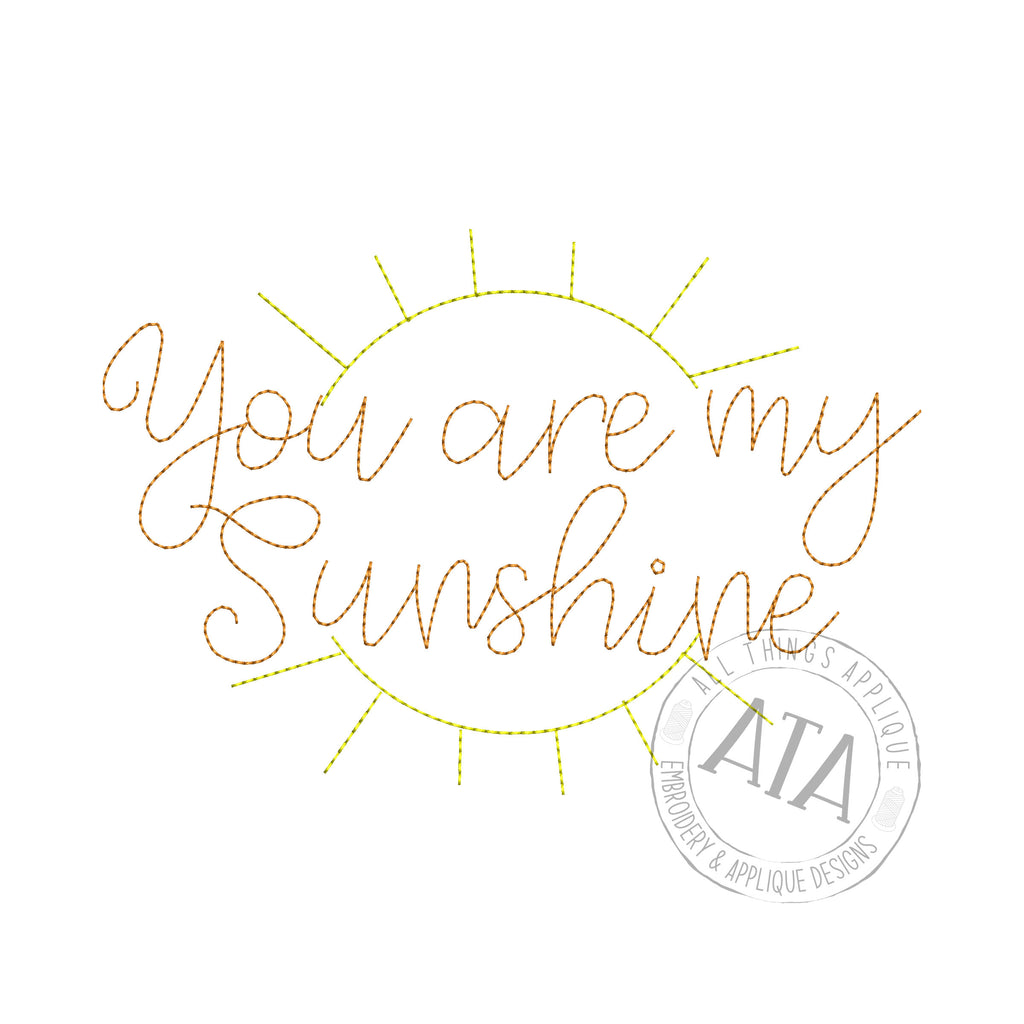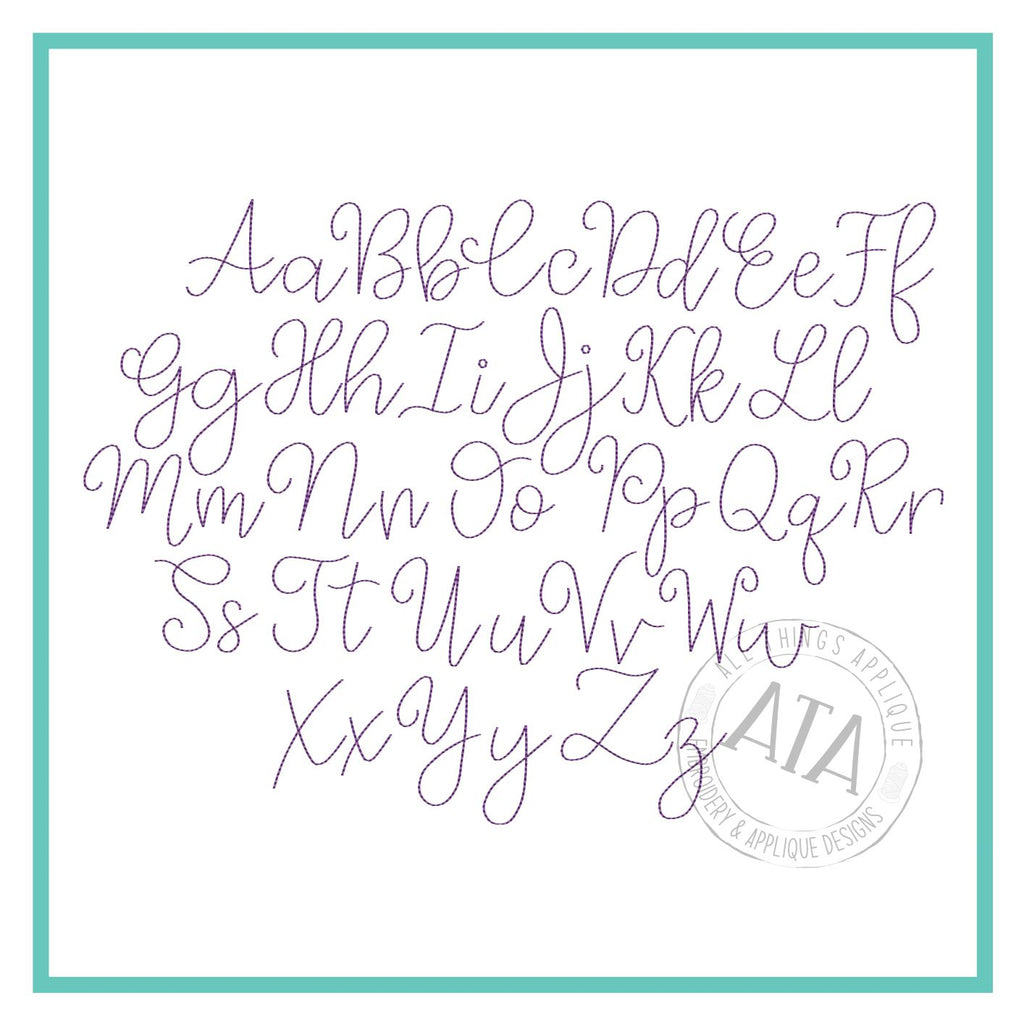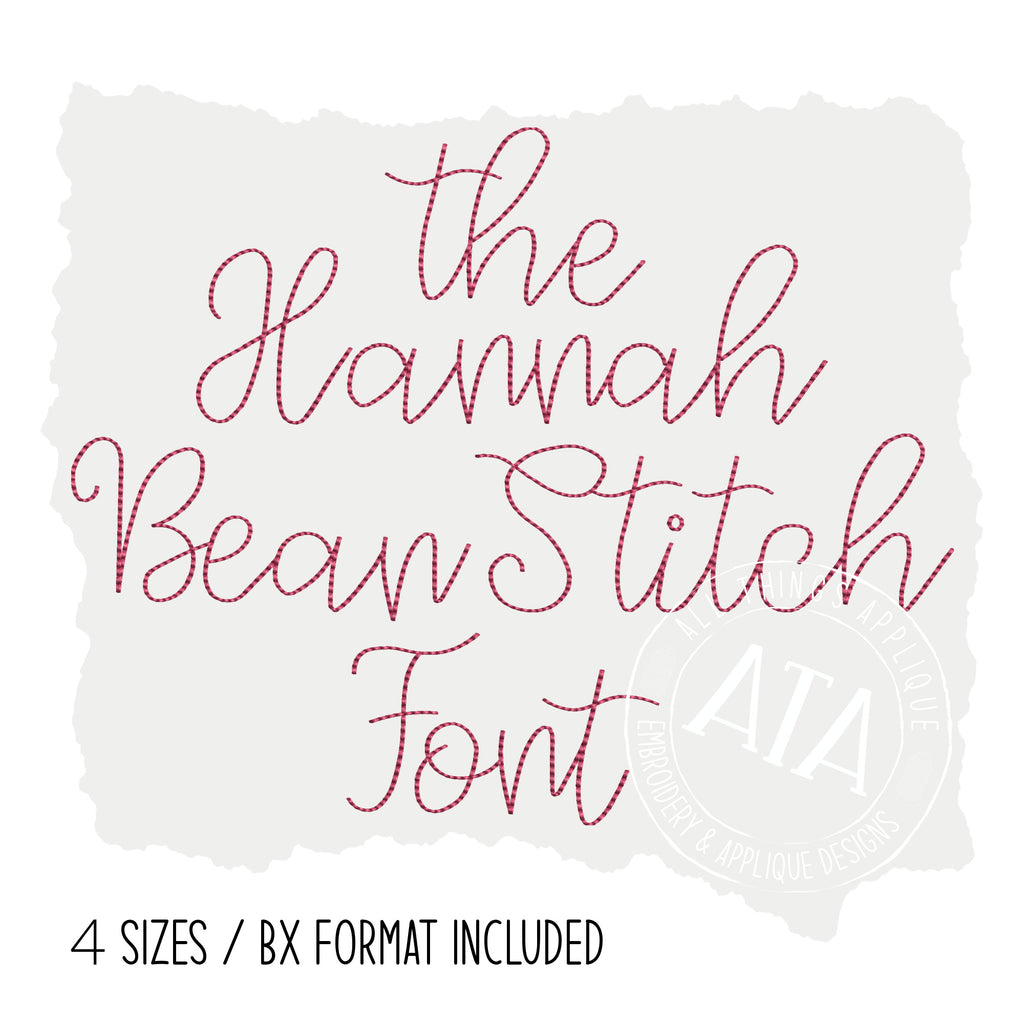
The Hannah Bean Stitch Font
Machine Embroidery Bean Vintage Floss Stitch Font - the hannah font - by all things applique - 1.0", 1.5", 2.0", 2.5" with BX Format
A quick and simple embroidery font perfect to stitch with any quick stitch or vintage embroidery design.
Note: This font is stitched with a floss stitch/bean stitch. This floss stitch goes back and forth multiple times for a thicker running stitch font. It is recommended to stabilize your project well and I sometimes slow my machine down when stitching floss fonts to ensure a smooth stitch-out. It is NOT recommended to adjust the sizing of floss stitch fonts as this may affect the stitch quality.